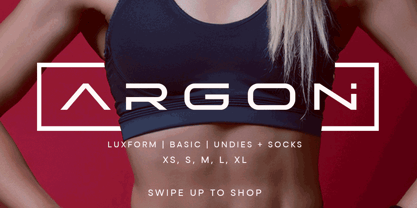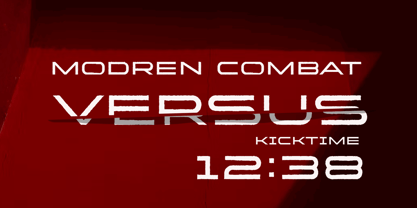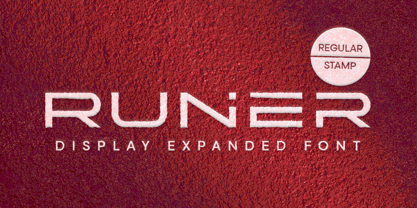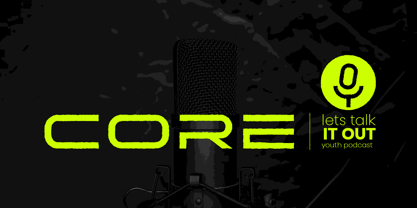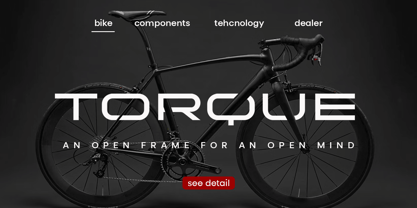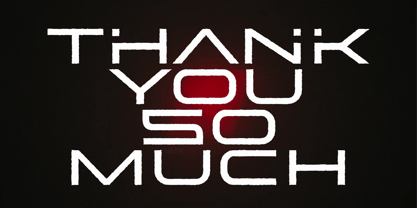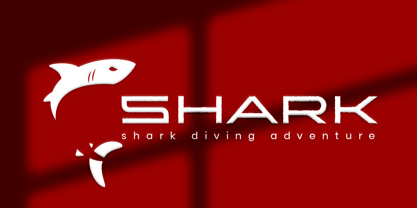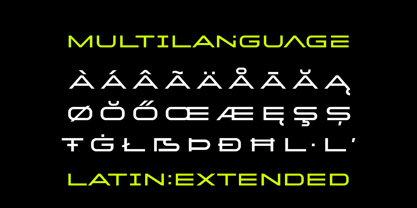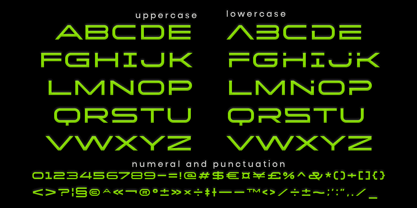
Runer
by MMMA Creative
The Runer Font Family was designed by Muhammad Ridha Agusni, Muhammad Mevlana Maliq Azizi and published by MMMA Creative. Runer contains 2 styles and family package options.
RUNER is a high-impact display font built for speed, strength, and modern performance. With its expanded letterforms and angular cuts, RUNER captures the spirit of motion: bold, fast, and forward-thinking. The design is clean but never quiet, making it the perfect match for sport brands, cycling gear, activewear, or tech-driven visuals.
It comes in two dynamic styles: Regular for a clean, sleek look, and Stamp for a gritty, worn-in finish that adds character and edge. With full Latin Extended support, RUNER is ready to go global whether you’re building a bold brand or racing ahead in your next creative project.
About MMMA Creative
MMMA Creative is an independent type foundry based in Aceh, Indonesia, founded by Muhammad Mevlana Maliq Azizi. With a love for expressive letterforms, MMMA Creative focuses on creating display, graffiti, and handwriting fonts that carry a personal and creative touch.Inspired by urban culture and the freedom of visual expression, each typeface is crafted with care—whether it's bold graffiti styles or natural handwriting. MMMA Creative is a place where letters are shaped by passion, built with a DIY spirit, and made to connect through character.